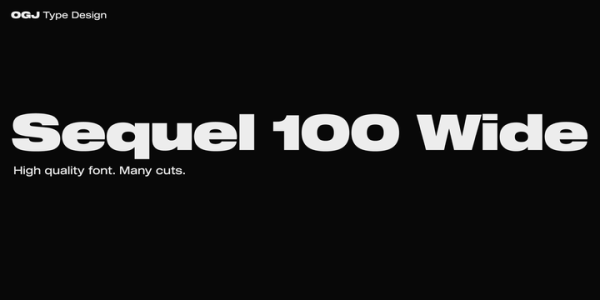
Sequel 100 Wide, a contemporary headline font
Download Sequel 100 Wide font Sequel 100 Wide is a contemporary typeface created by Oliver Jeschke and published by OGJ Type Design which was inspired by 19th century. It is available in 12 styles, 6 weights (45 Wide, 55 Wide, 65 Wide, 75 Wide, 85 Wide, 95 Wide) and their italics (46 Wide, 56 Wide, … Continue reading Sequel 100 Wide, a contemporary headline font